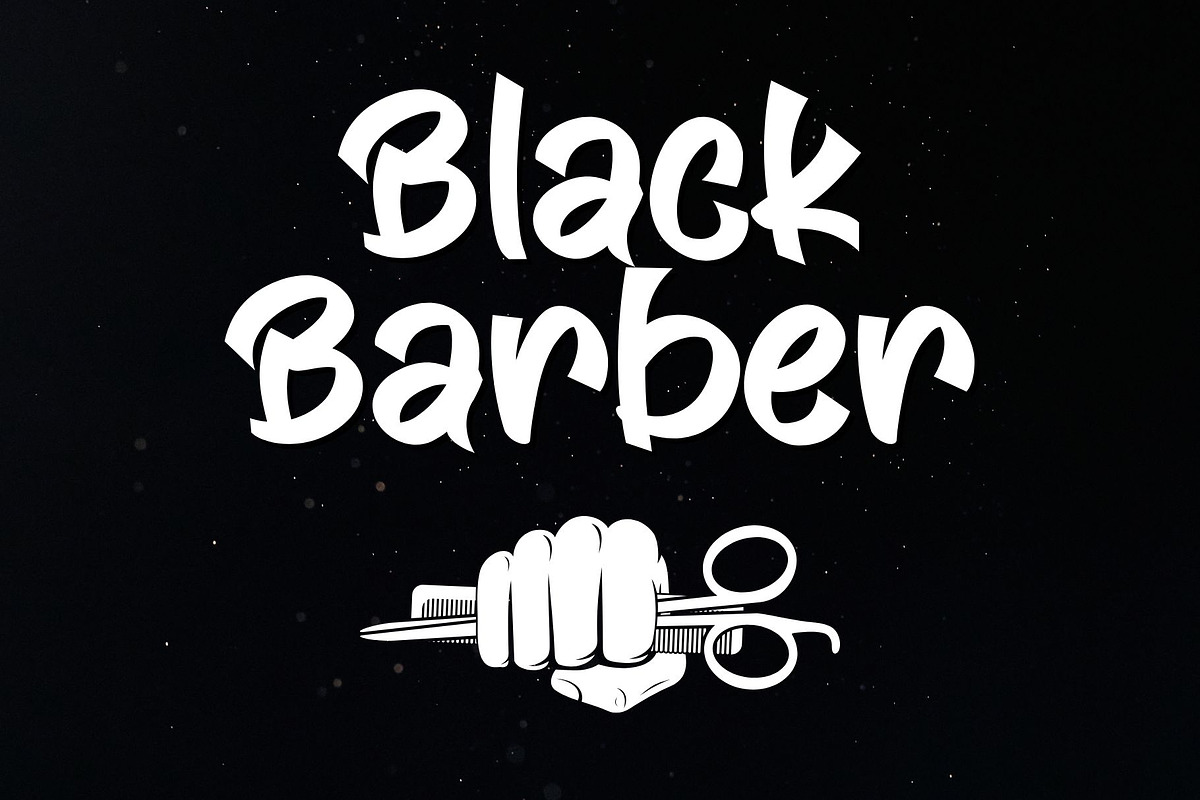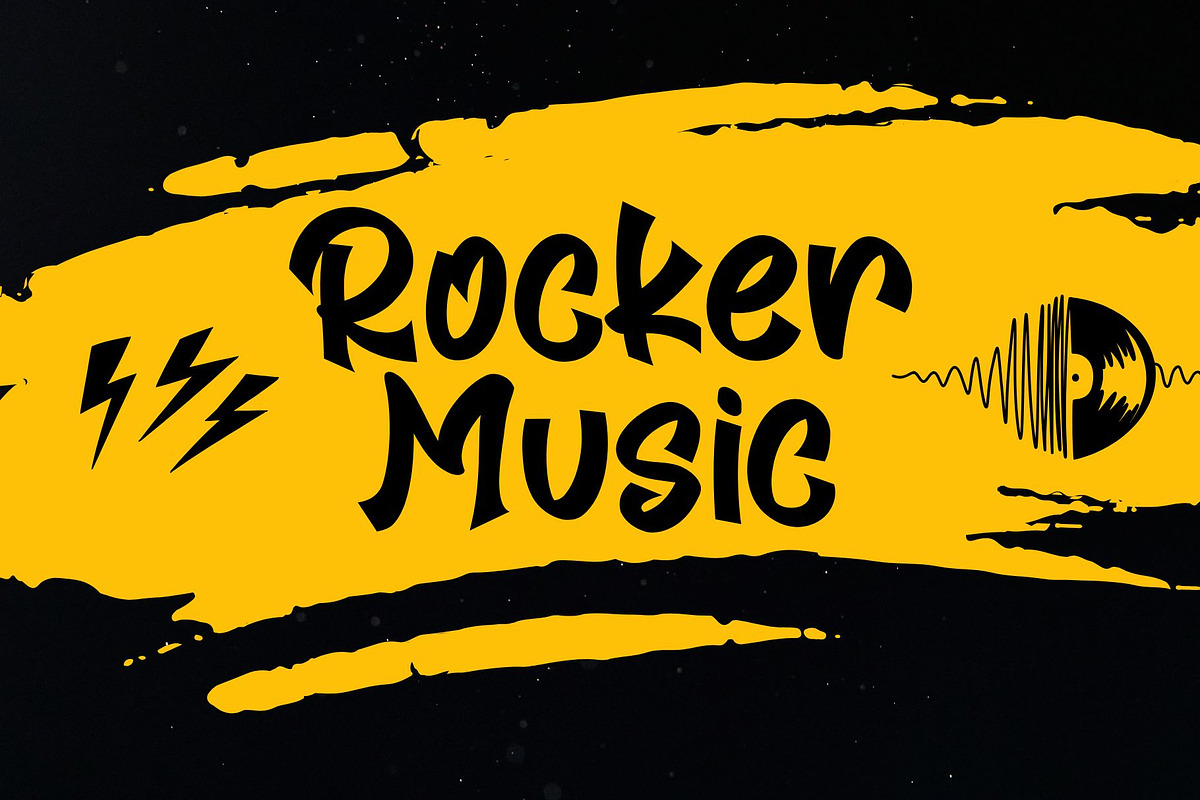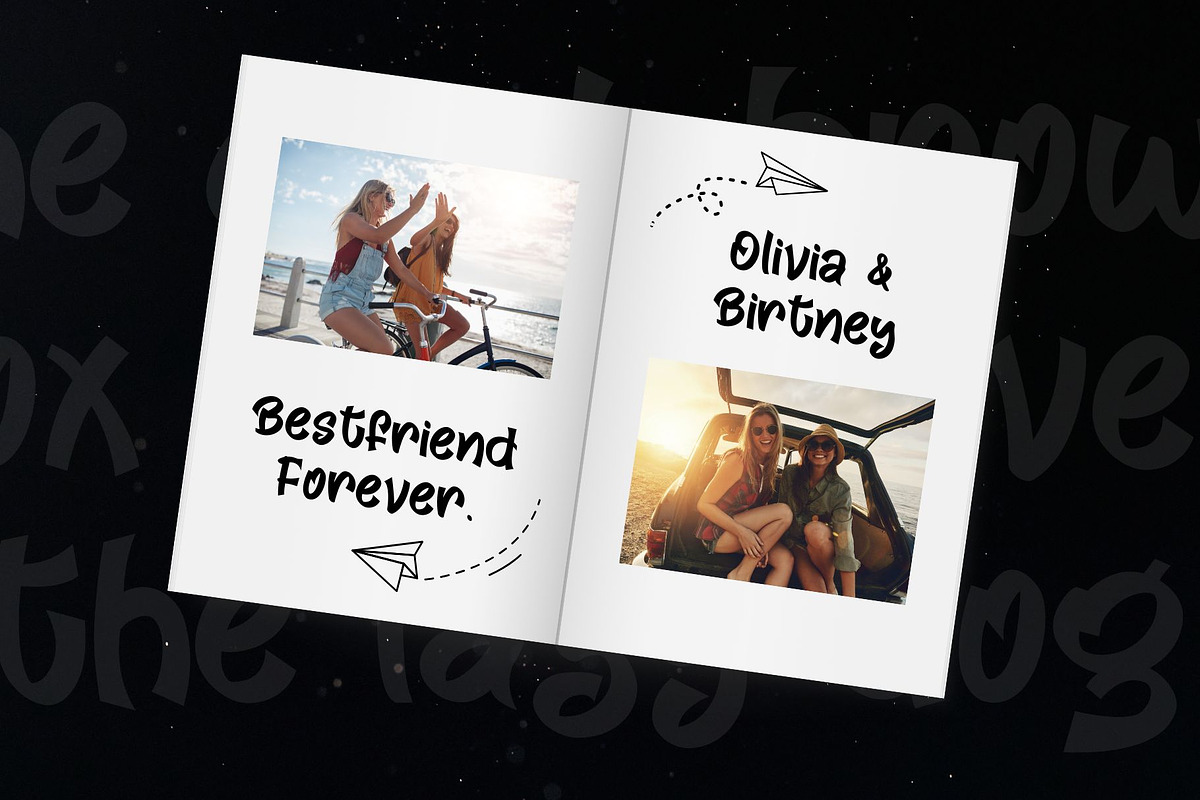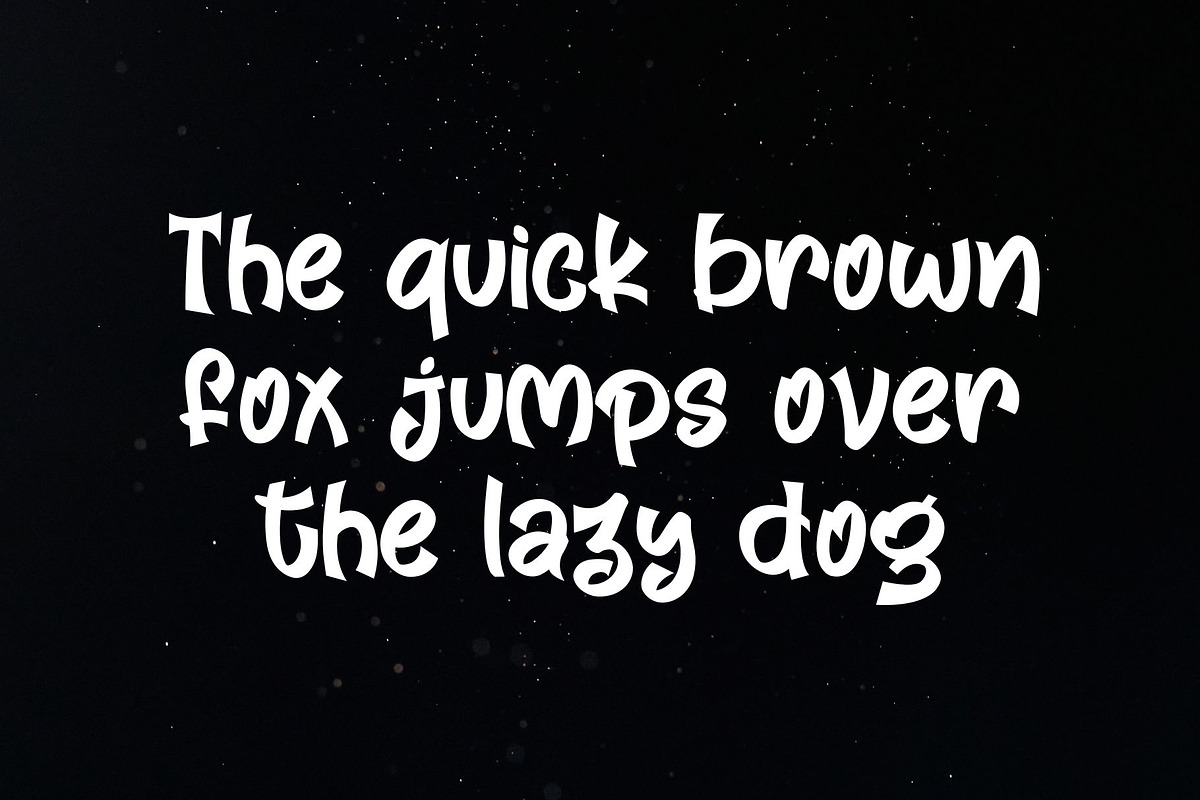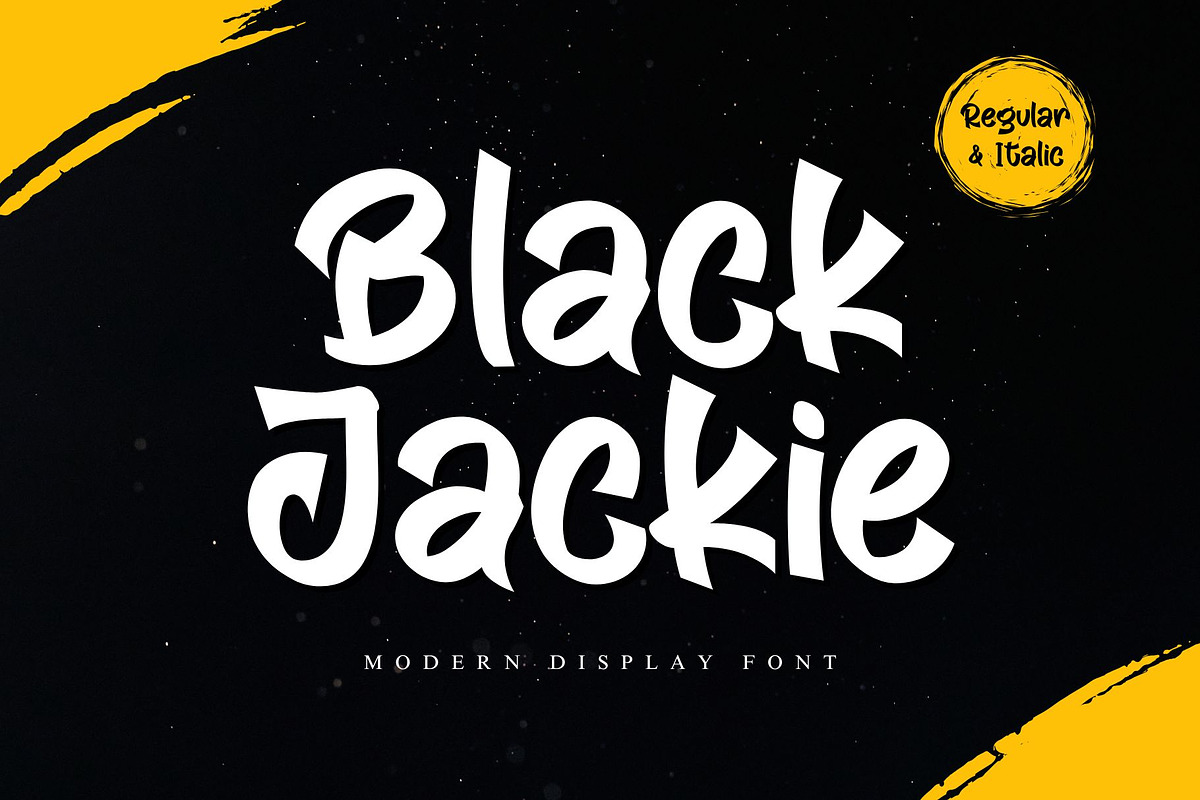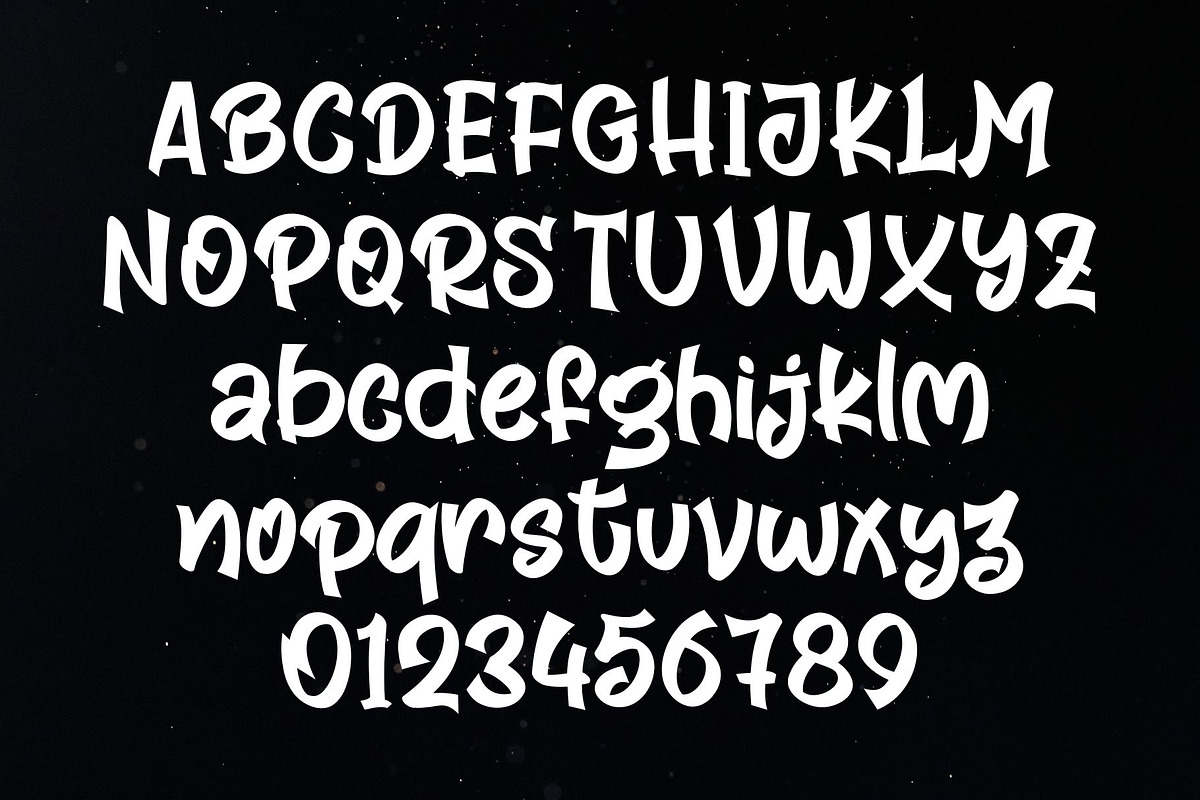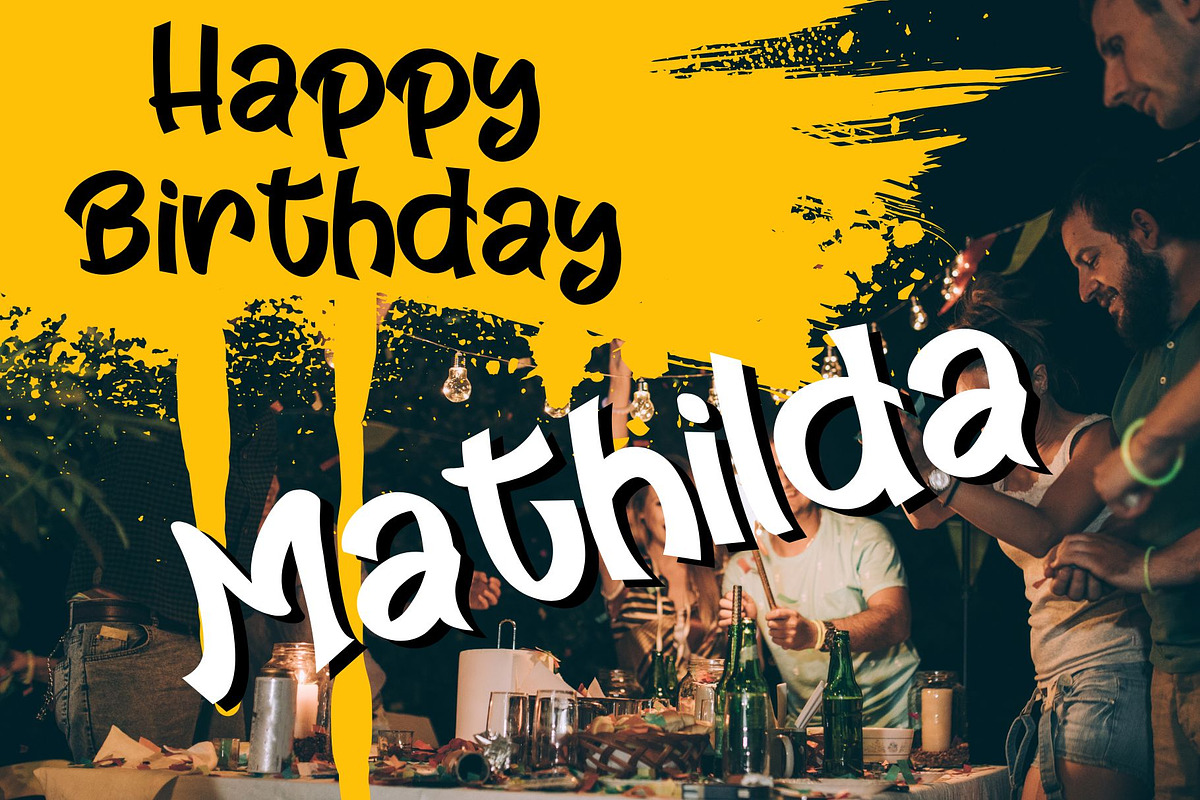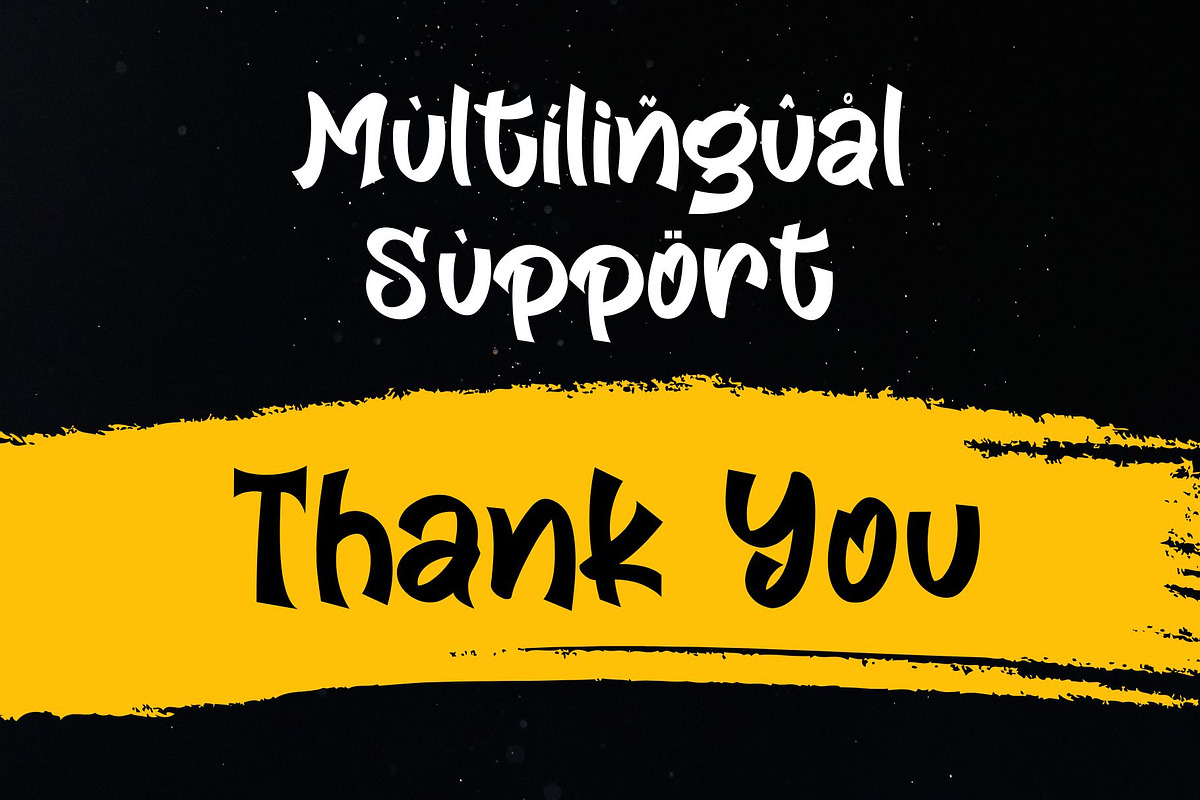
Black Jackie
Unleash the untamed creativity with "Black Jackie", a contemporary display font. With its unique characteristics and fascinating appeal, it has the astounding capability to vivify all your design endeavours. Let Black Jackie be the key that unlocks a new dimension for your creative journey.